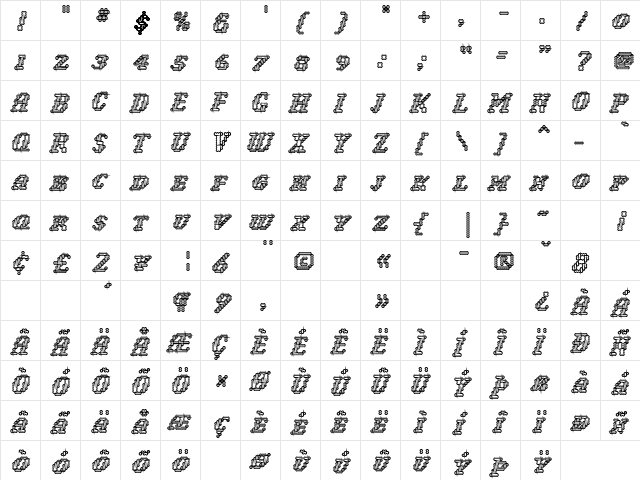
NarlyInline Roman
Design Context for NarlyInline Typeface
NarlyInline brings ornamental detail and strong personality to headlines and identities, where visual impact matters more than quiet functionality.
Font Pairing: Pair with a clean neutral sans-serif for body copy to let NarlyInline's character lead without overwhelming the composition.
Pro Tip: Treat NarlyInline as the centrepiece of your typographic hierarchy. One strong heading set in a decorative face can carry an entire layout.